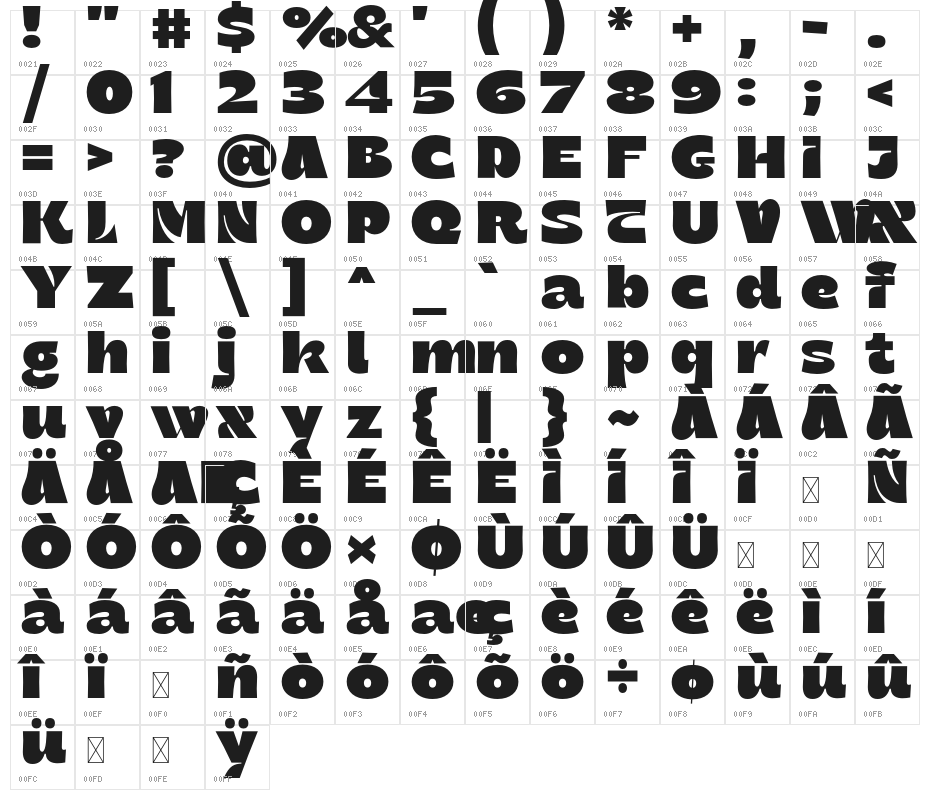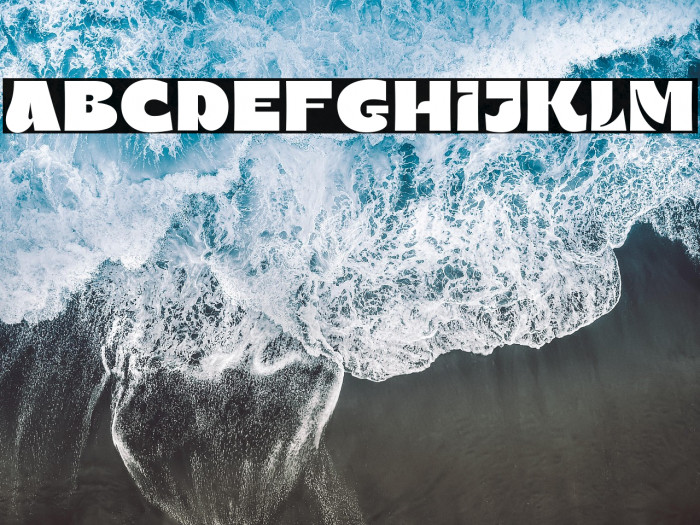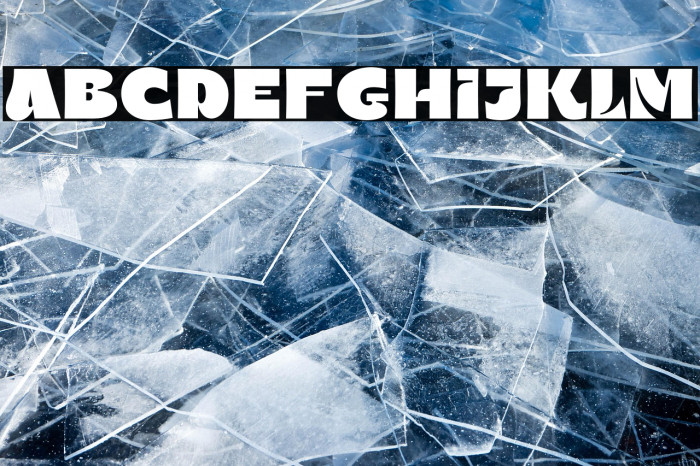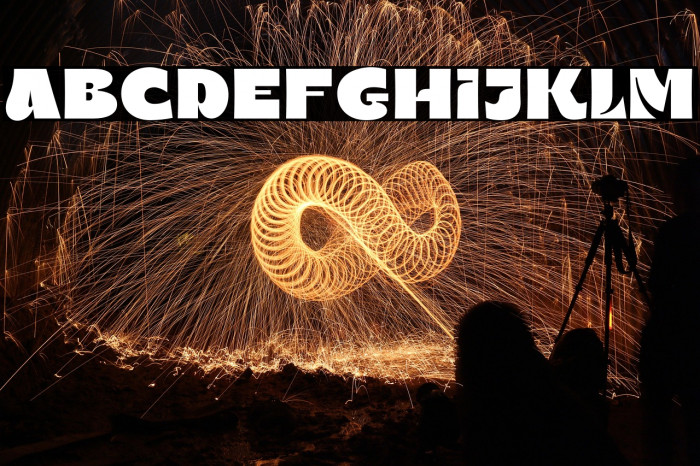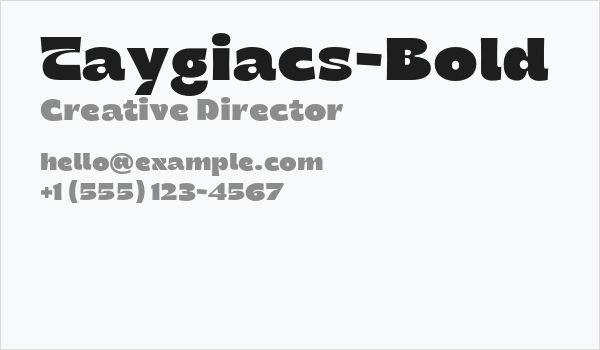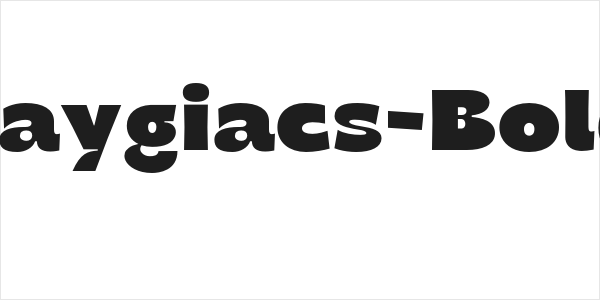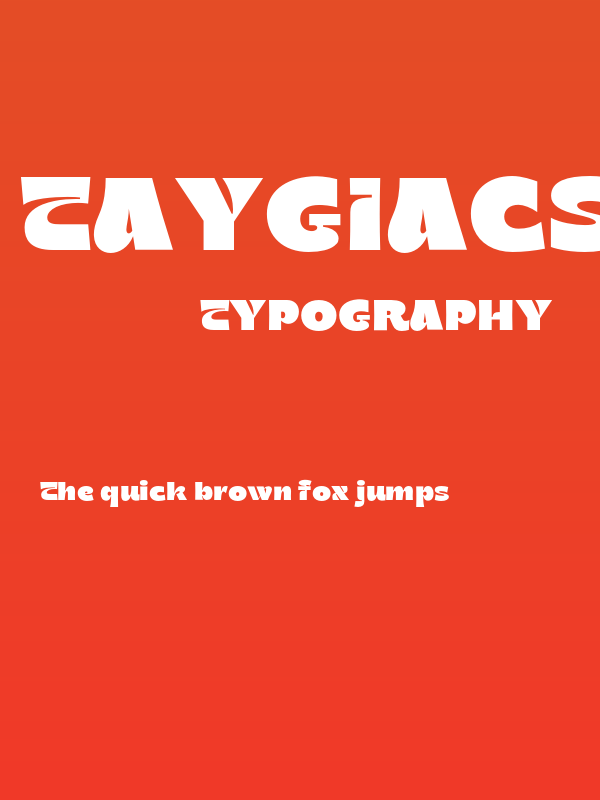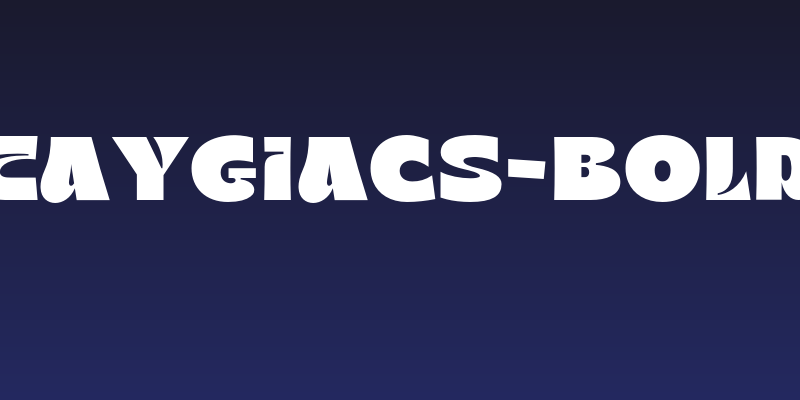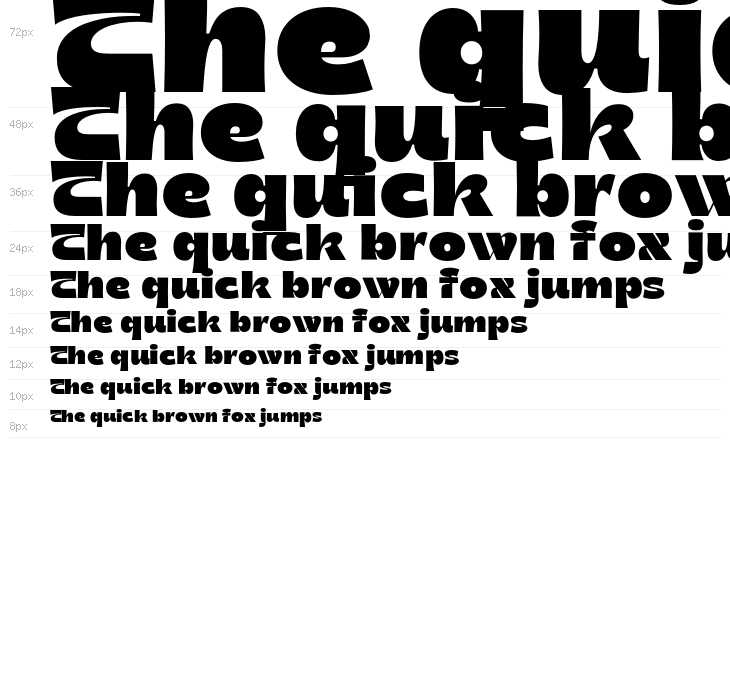
Taygiacs-Bold Font
Taygiacs-Bold Description
This bold, decorative font features a unique and playful design with exaggerated curves and angles, giving it a dynamic and energetic appearance. The uppercase letters are particularly striking, with some characters incorporating unexpected cuts and shapes that add to the font's distinctive style. The lowercase letters maintain a consistent boldness, ensuring readability while still offering a touch of whimsy. Numbers and special characters are designed with the same bold and playful characteristics, making them suitable for a variety of creative applications. The overall design is eye-catching and ideal for projects that require a strong visual impact.
Proposed ProjectsIdeal for posters, logos, headlines, and any project needing a bold, creative touch.